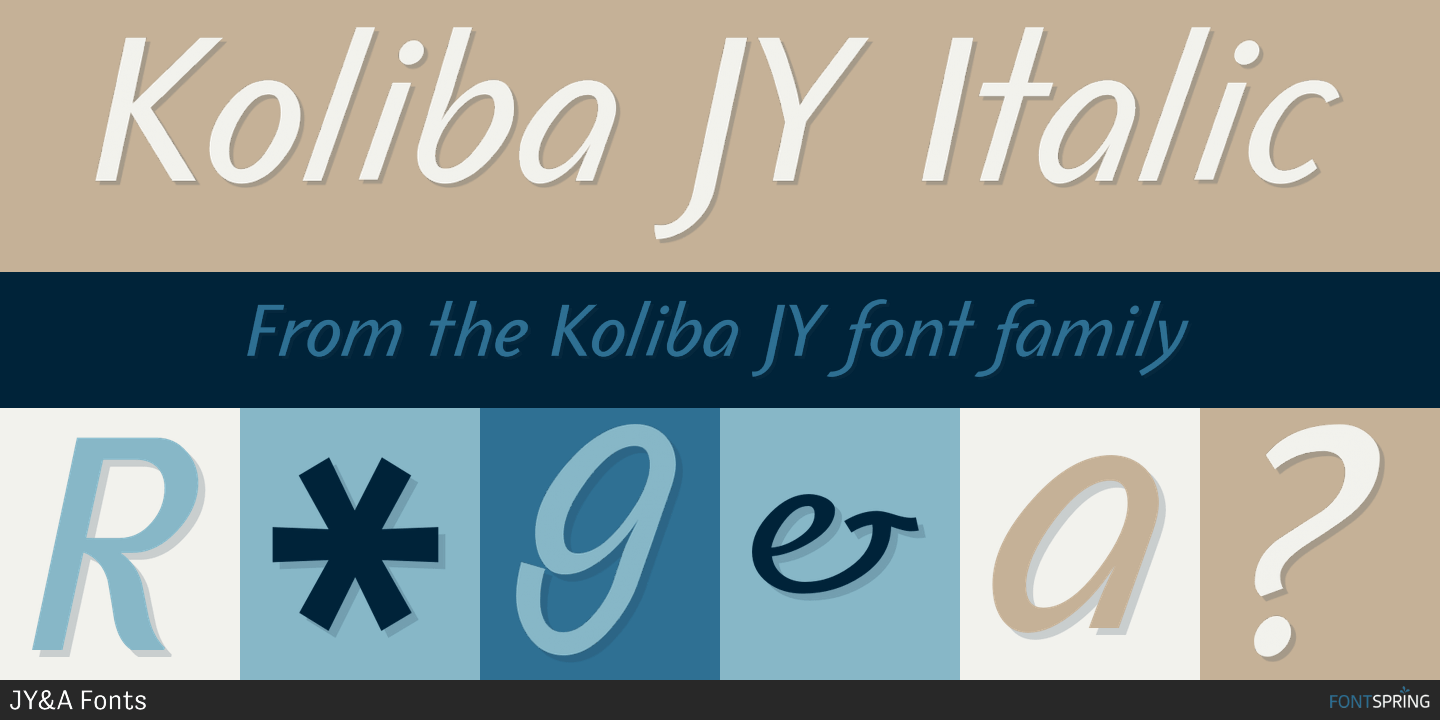
About Koliba JY
Inspired by architecture and hand-lettered posters of the 1940s, JY Koliba makes a statement that is very 21st century. With an ultra-light weight plus an elegant book and bold, Koliba was designed to be flexible. Fine-tuned with a full Latin glyph complement,…